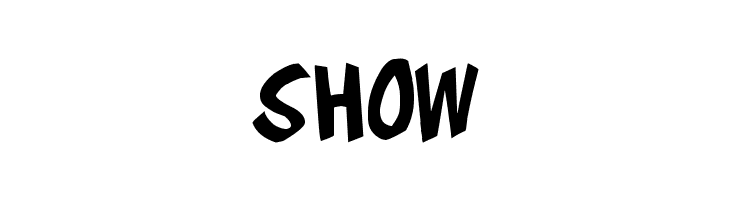
Grandline free for personal Font
- Font: Grandline free for personal
( Fonts by Steve Ferrera )
A playful, hand-drawn font with dynamic and irregular letterforms.